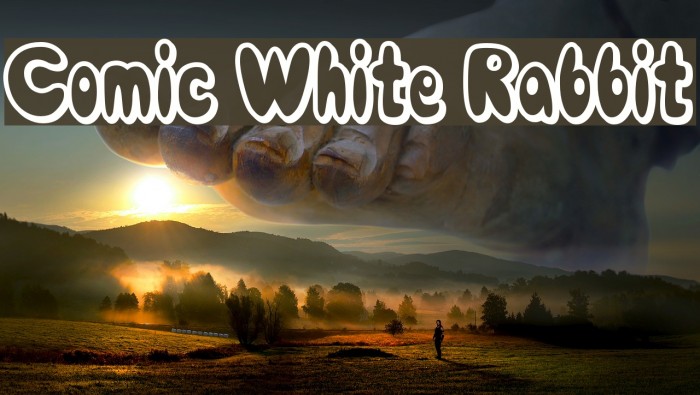
Comic White Rabbit Font
This playful and whimsical font features bold, rounded characters with a thick outline, giving it a cartoonish and fun appearance. The letters are slightly irregular, adding to the casual and informal feel. The uppercase and lowercase letters maintain a consistent style, with the lowercase being slightly more compact. The numbers and special characters follow the same playful design, making the font suitable for creative and lighthearted projects. Its bold presence ensures it stands out, while the rounded edges soften its overall look.
A playful, bold font with rounded characters and a cartoonish style.
- Proposed Projects: Ideal for children's books, comic strips, playful branding, and party invitations.
- Overall Style: Playful, Cartoonish